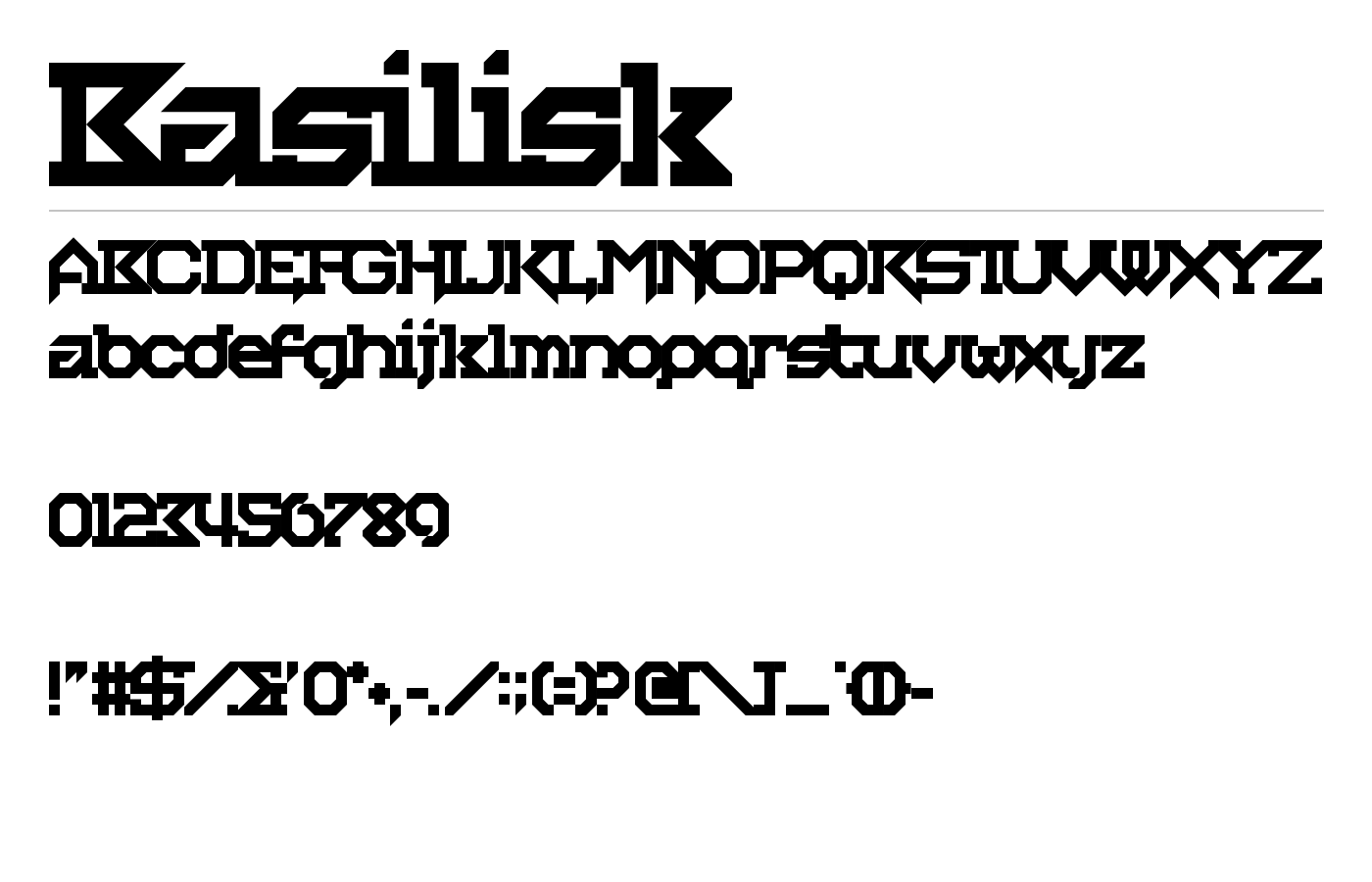
Basilisk is a bold, geometric sans serif font with a strong, angular structure and sharp edges that create a futuristic, edgy look. Its tightly spaced characters and high contrast between thick and thin strokes make it ideal for impactful headlines, logos, and display use where a modern, tech-inspired vibe is desired. This font works well in creative branding and digital projects that seek to stand out with a distinctive, modern personality.
Basilisk Font
About Basilisk Font